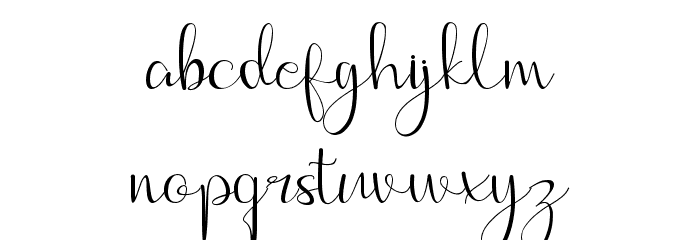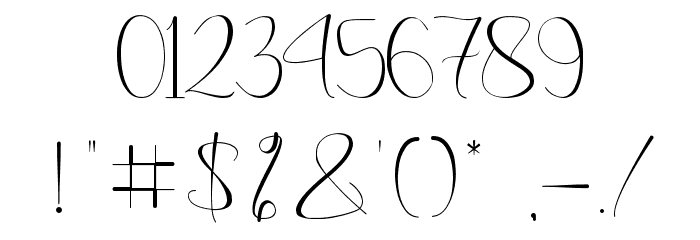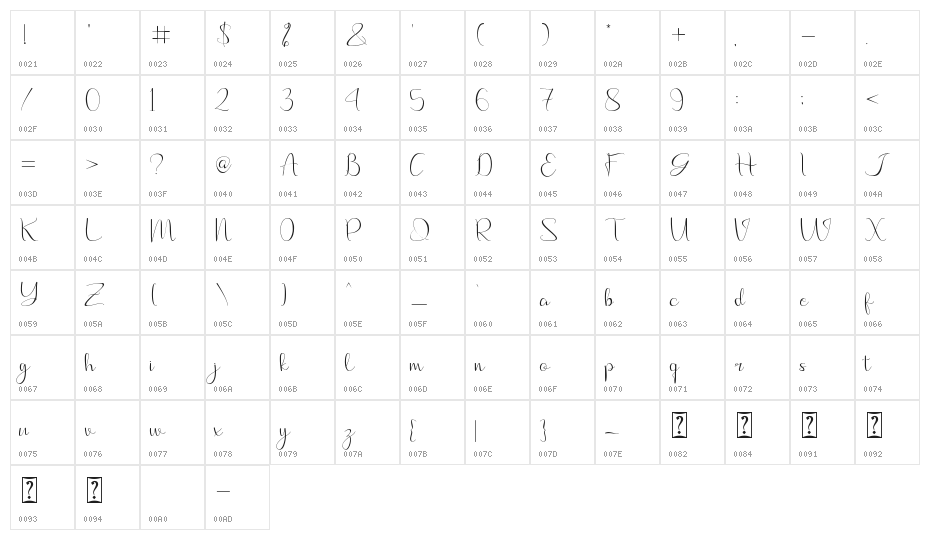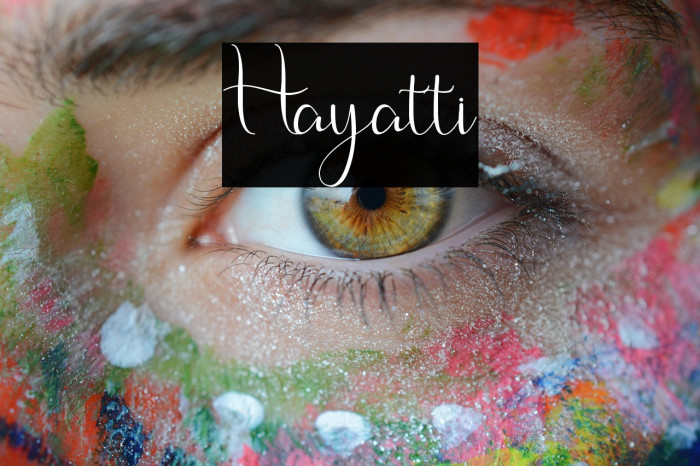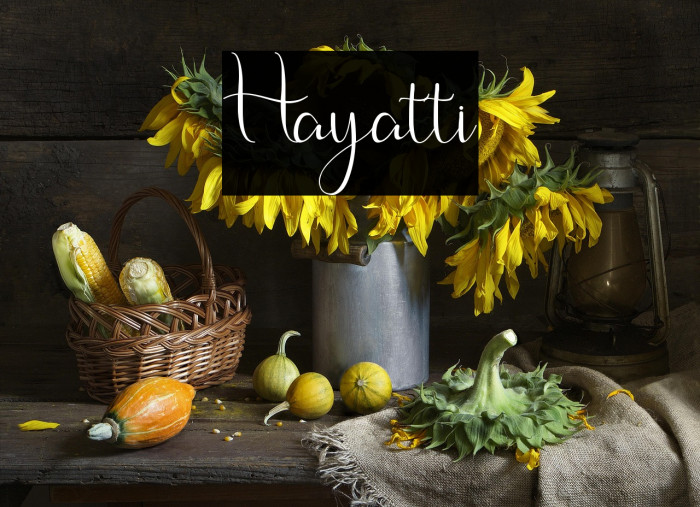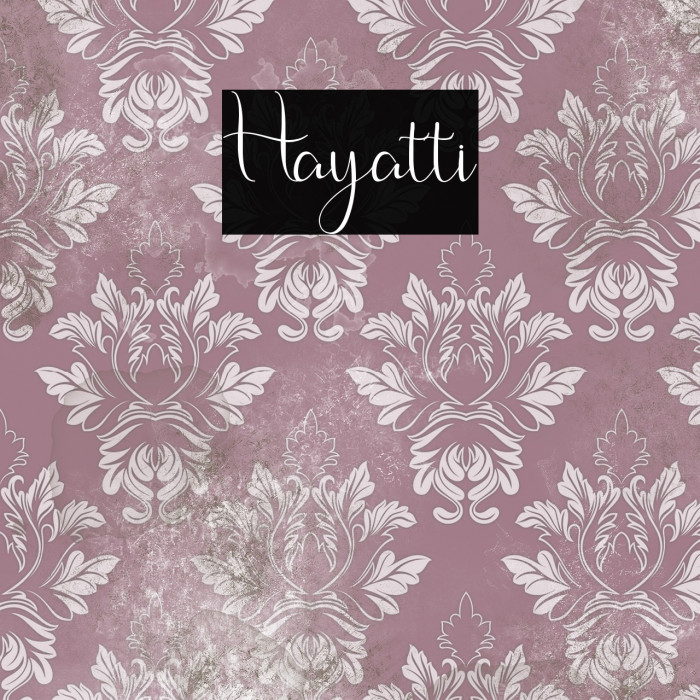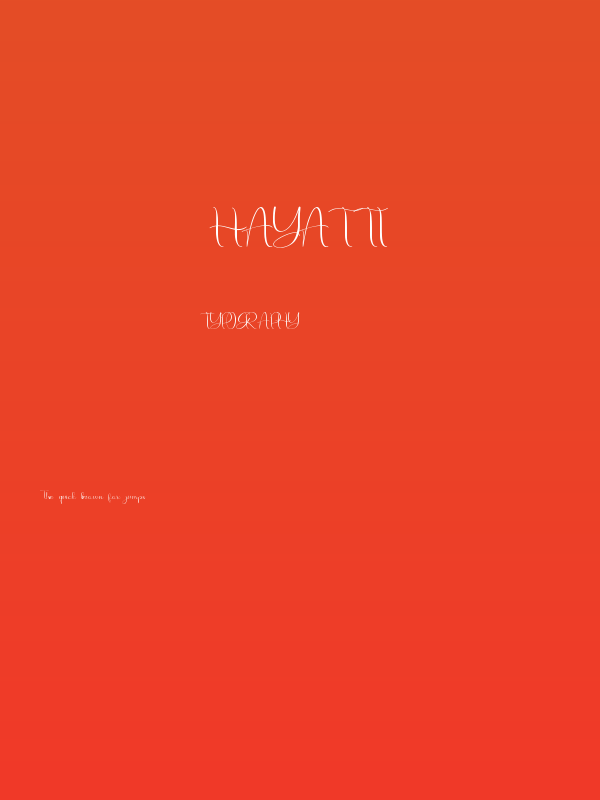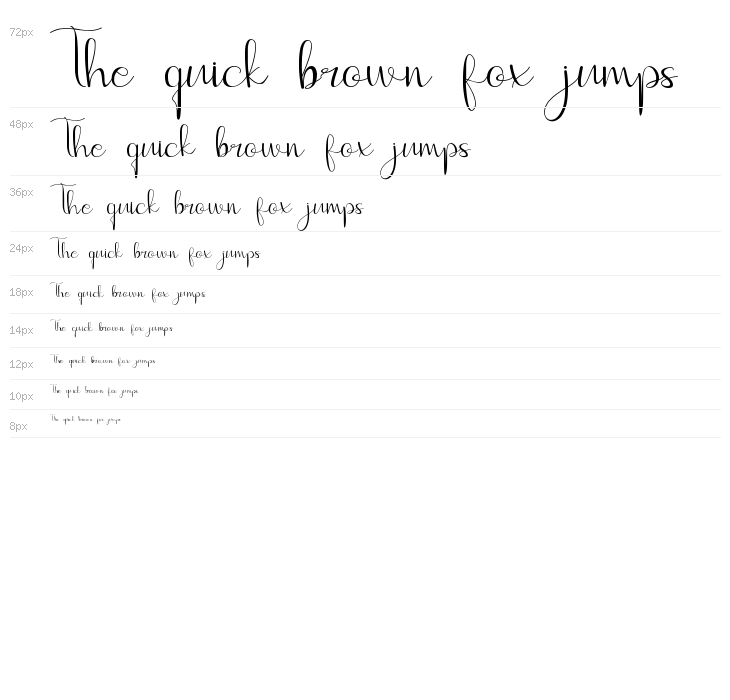
Hayatti Font
This elegant script font features a flowing, cursive style with high contrast between thick and thin strokes. The uppercase letters are characterized by sweeping, dramatic flourishes that give a sense of movement and grace. The lowercase letters maintain a consistent flow, with gentle curves and loops that enhance readability while preserving the decorative nature of the font. The numerals are distinct and maintain the same elegant style, making them suitable for various design purposes. Special characters are thoughtfully integrated, ensuring they complement the overall aesthetic. This font exudes sophistication and is ideal for projects that require a touch of elegance and style.
An elegant script font with flowing, cursive strokes and high contrast.
- Proposed Projects: Wedding invitations, luxury branding, elegant packaging, greeting cards, and high-end product labels.
- Overall Style: Elegant, Decorative
- Use Case: Logos, Invitations, Branding